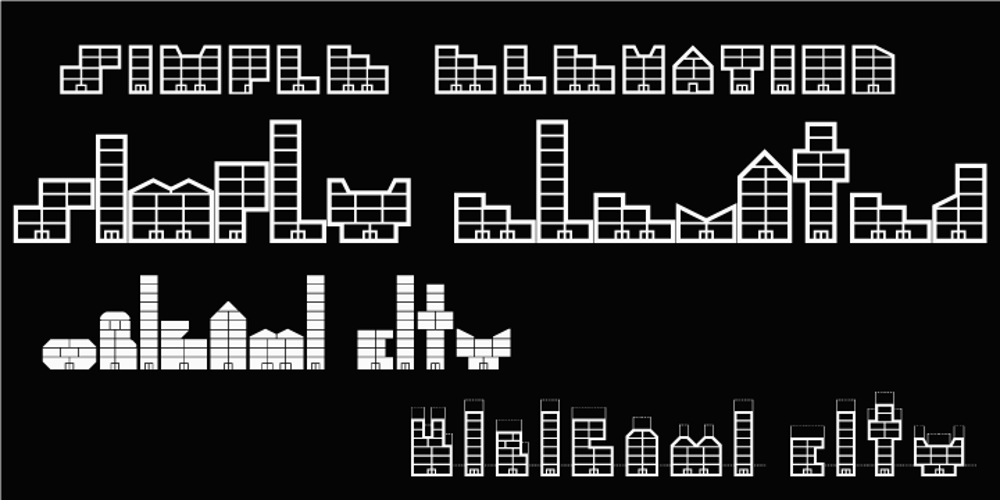
Simple Elevation Font Family was designed by published by Funk King. Simple Elevation contains 4 styles and family package options. Simple Elevation is a progression of architectural-inspired fonts. The glyphs as font-bats designed as buildings that can be read.